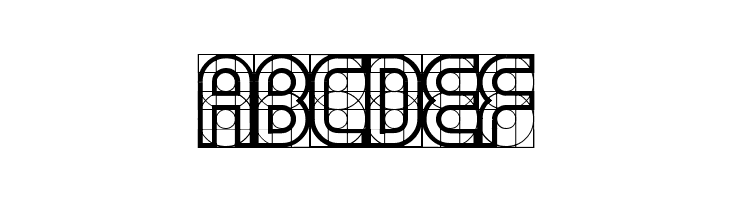
Cordel Encarnado II Font
- Font: Cordel Encarnado II
( Fonts by bridgeco.jp )
A geometric font with circular and linear elements, offering a modern and structured look.